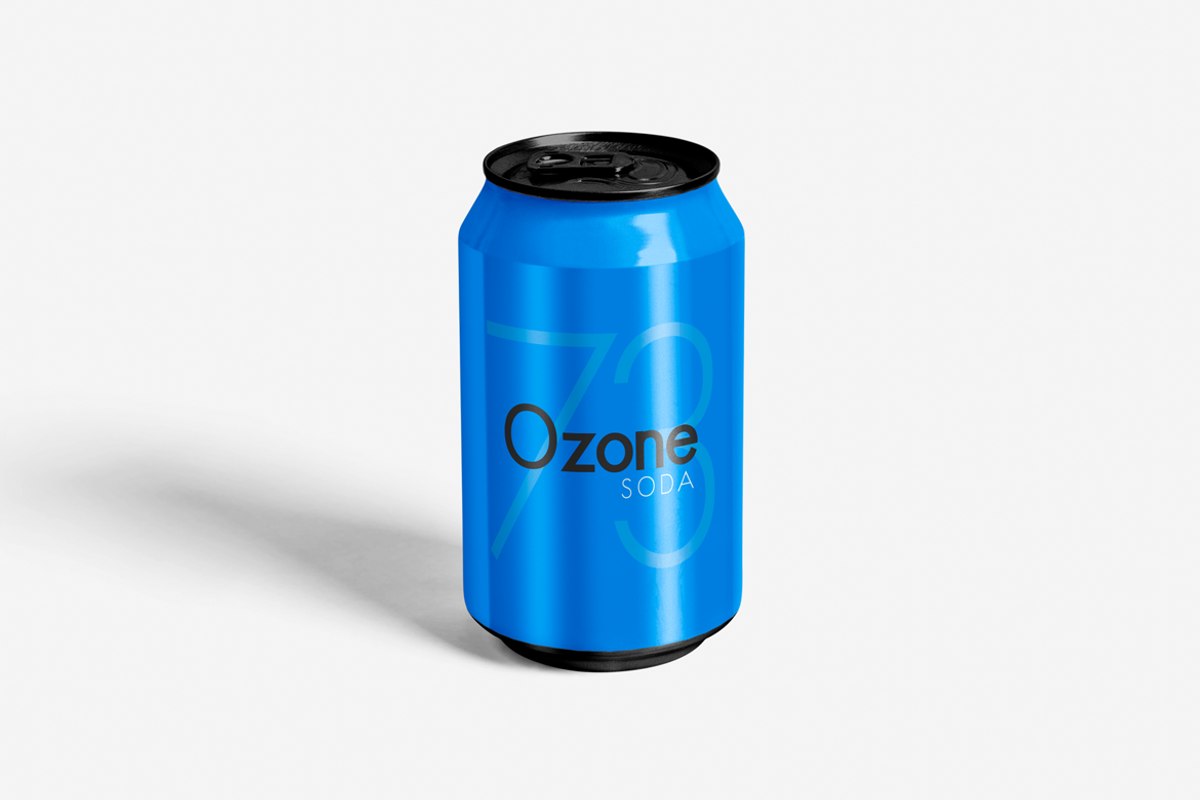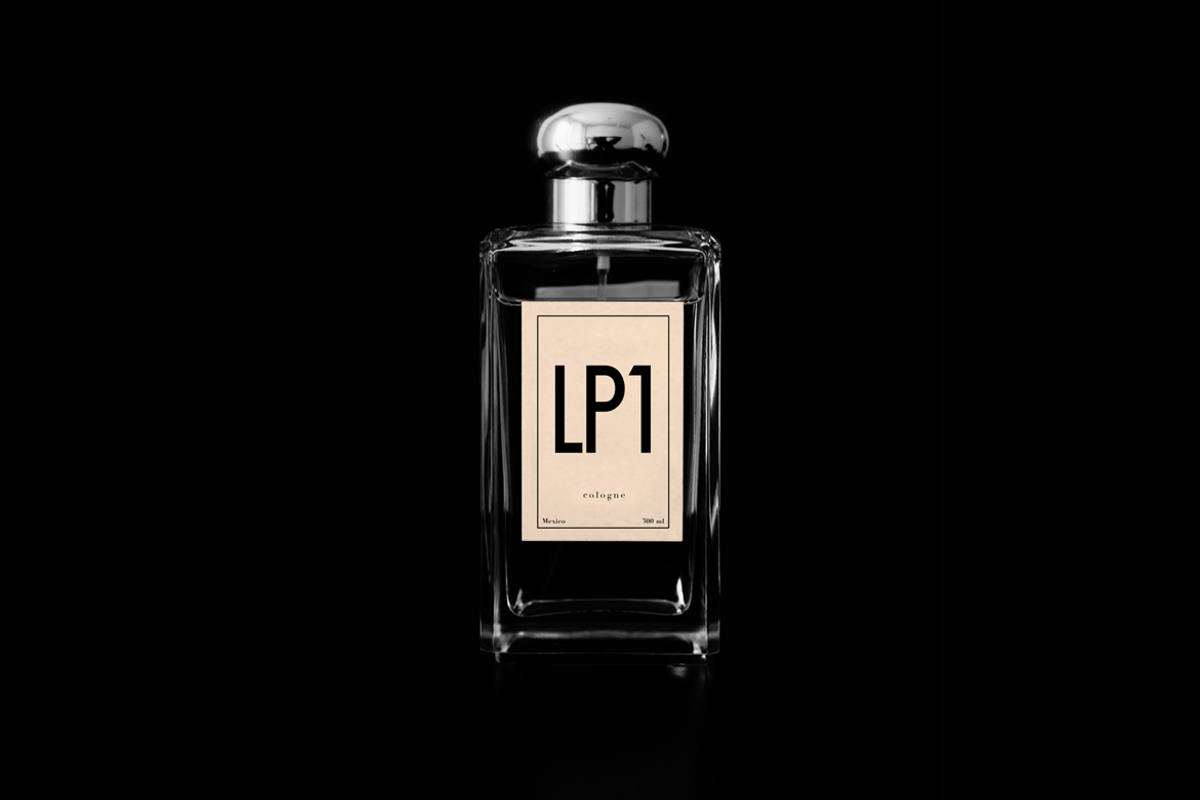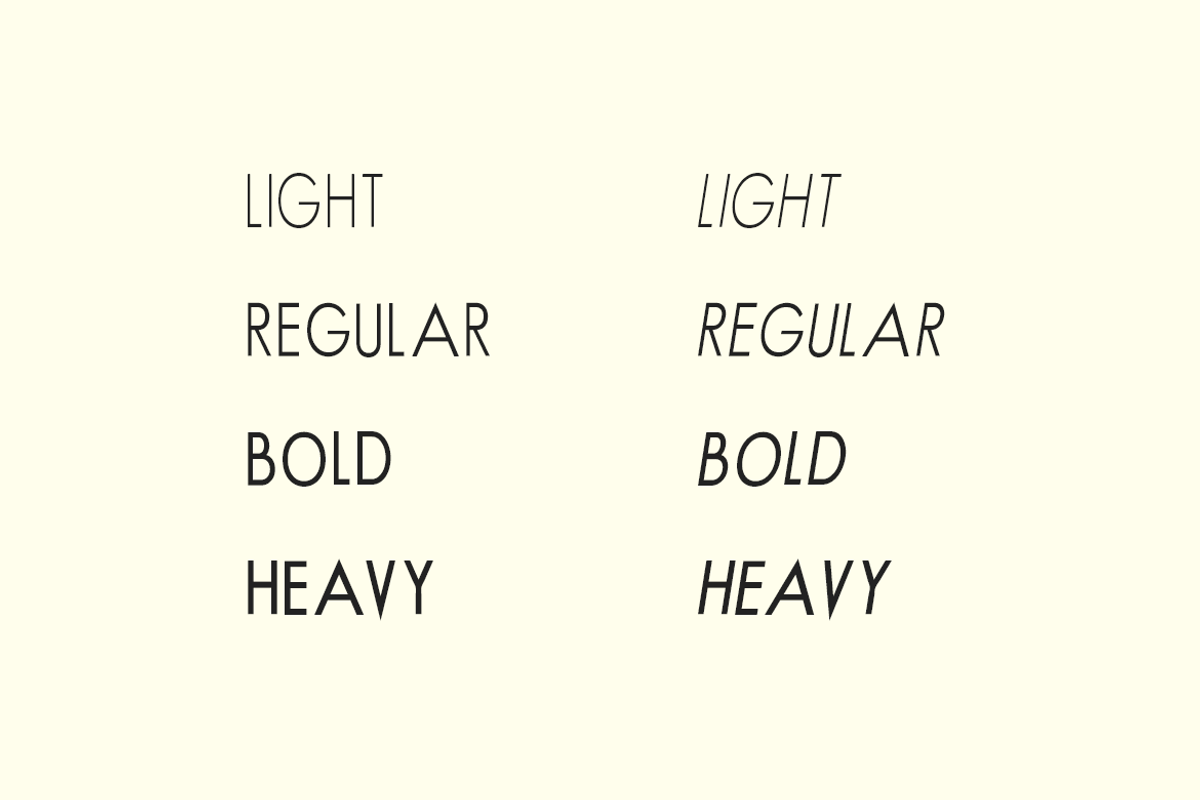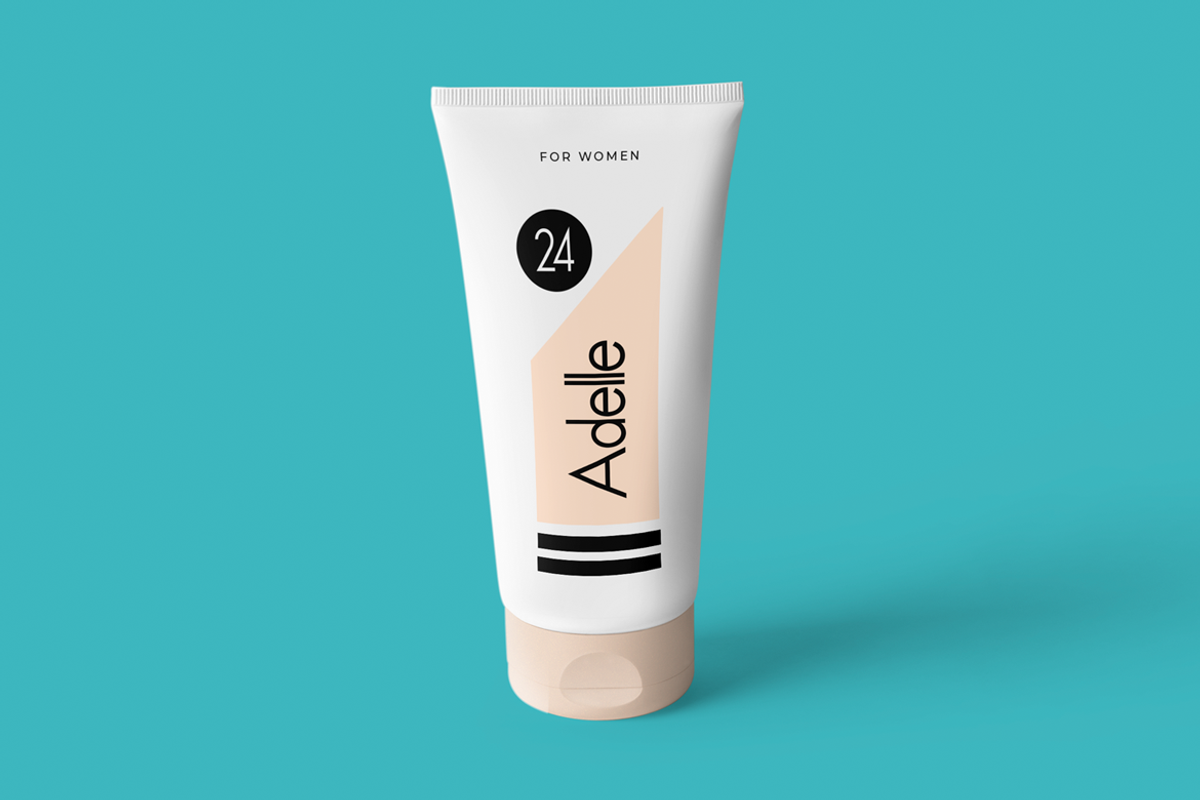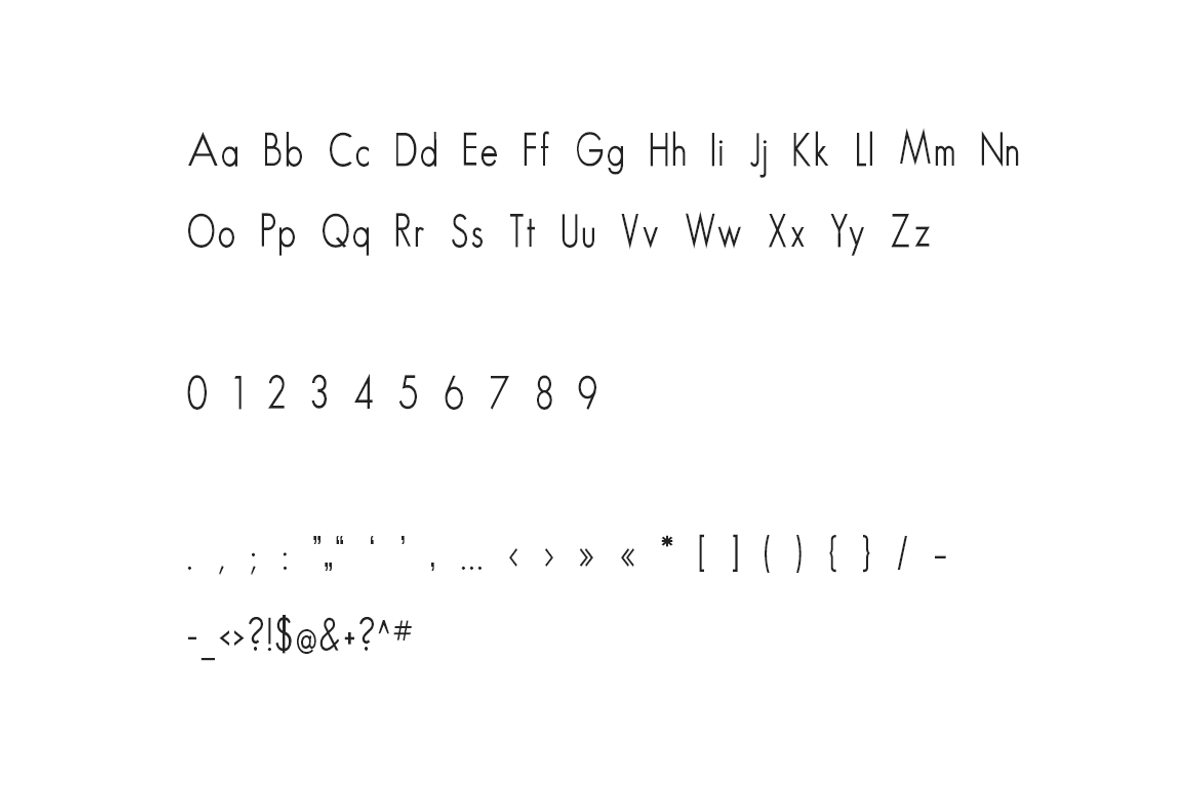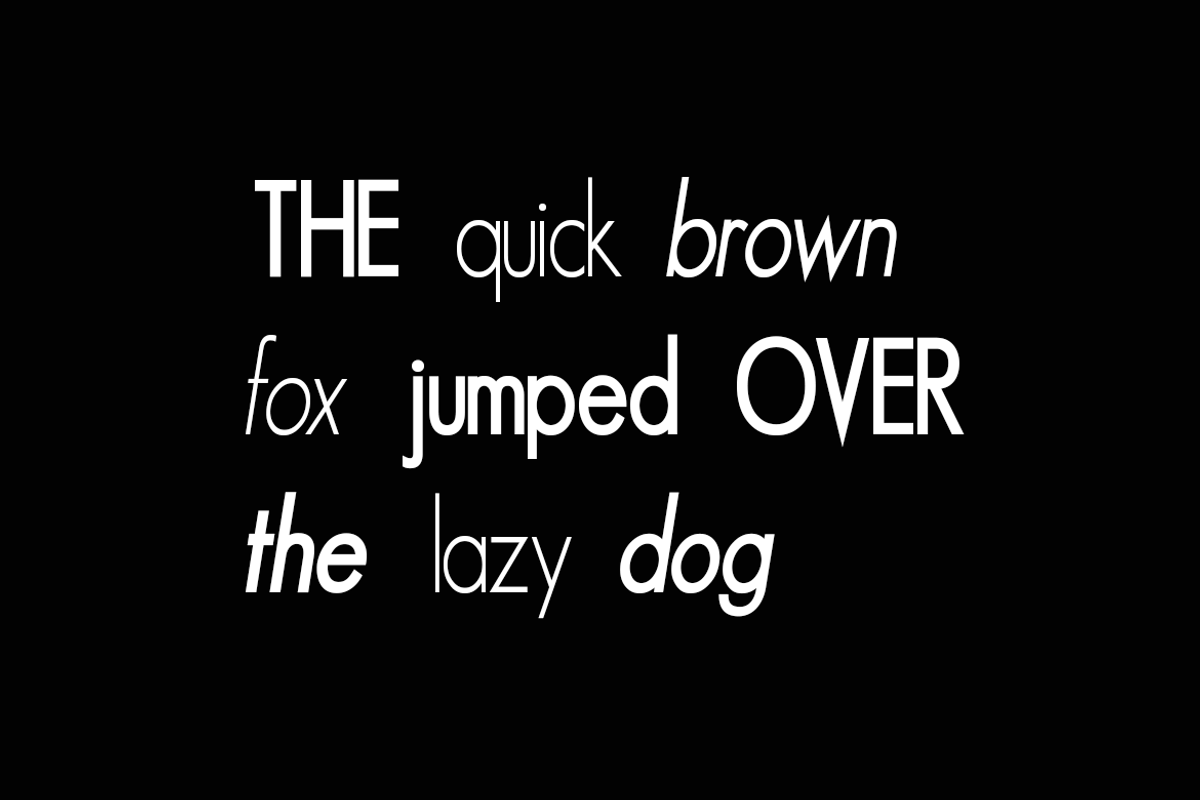
STYNX - Fashion / Display Typeface
STYNX is a stylish typeface for fashion, branding, logotypes & display usage. This unique typeface is best for creating outstanding logos, promotional content and marketing graphics that can really grab attention from your visitors. Please see the examples shown above to get an idea about the capability of this typeface.
STYNX comes with 4 different weights (Light, Regular, Bold, Heavy) along with italic versions of each weight. The pack contains OTF, TTF and Web Fonts (all EOT, SVG, TTF, WOFF, WOFF2 everything is included).